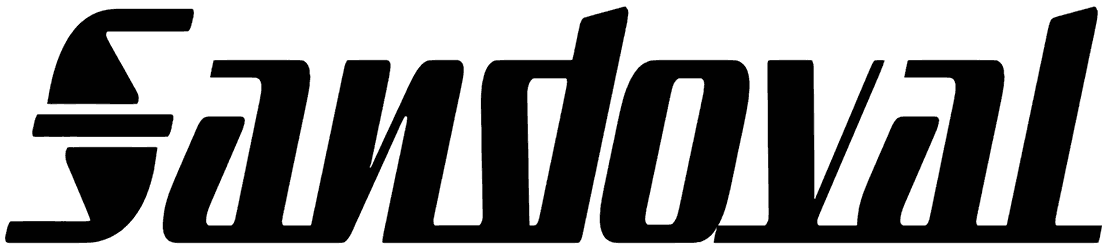
Sandoval Font
We all know that overusing the same fonts poses a serious threat to the efficiency of your visual content. In such cases, a magical sci-fi font such as Sandoval widens your selection range by offering two distinctive styles, making it a valuable survivor.
Pick up this techno font to reinforce a feeling of modernity, dynamic, or jauntiness in flyers, applications, merchandise, or branding.
Sandoval is a self-propelled commercial/industrial headline thumper.